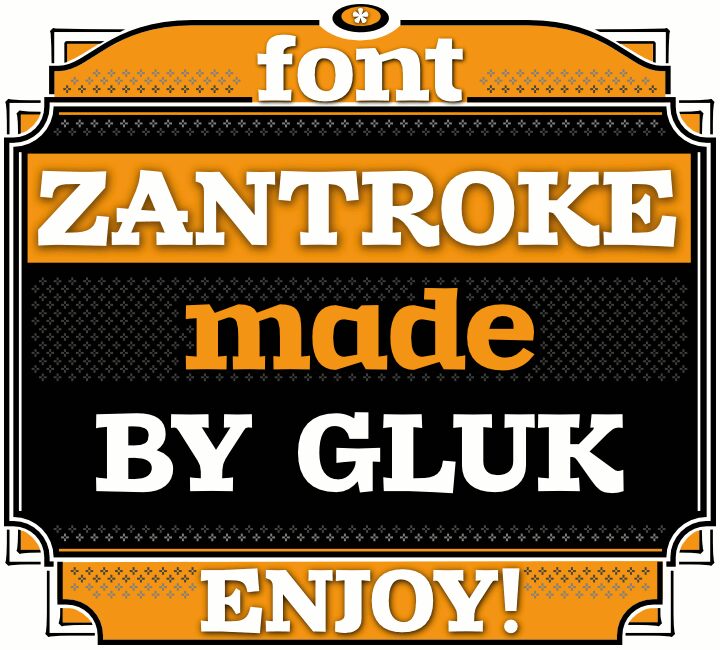
Zantroke by gluk is a free irregular serif display font with broad, emphatic forms. Its uneven outlines and shifting stroke widths give the lettering the blunt liveliness of hand-cut printing. Blocky serifs, pinched joins, and occasional tilted shapes keep the dense silhouette from feeling mechanically uniform.
It can create a rough-hewn title for music posters, festival graphics, and independent publishing, where its oversized shapes suit energetic artwork. On craft packaging or casual restaurant branding, the same carved quality can become the main product mark, lending labels and signs a direct, handmade identity.
Zantroke